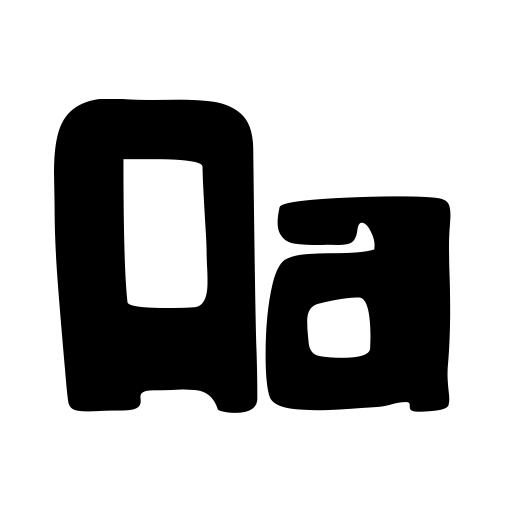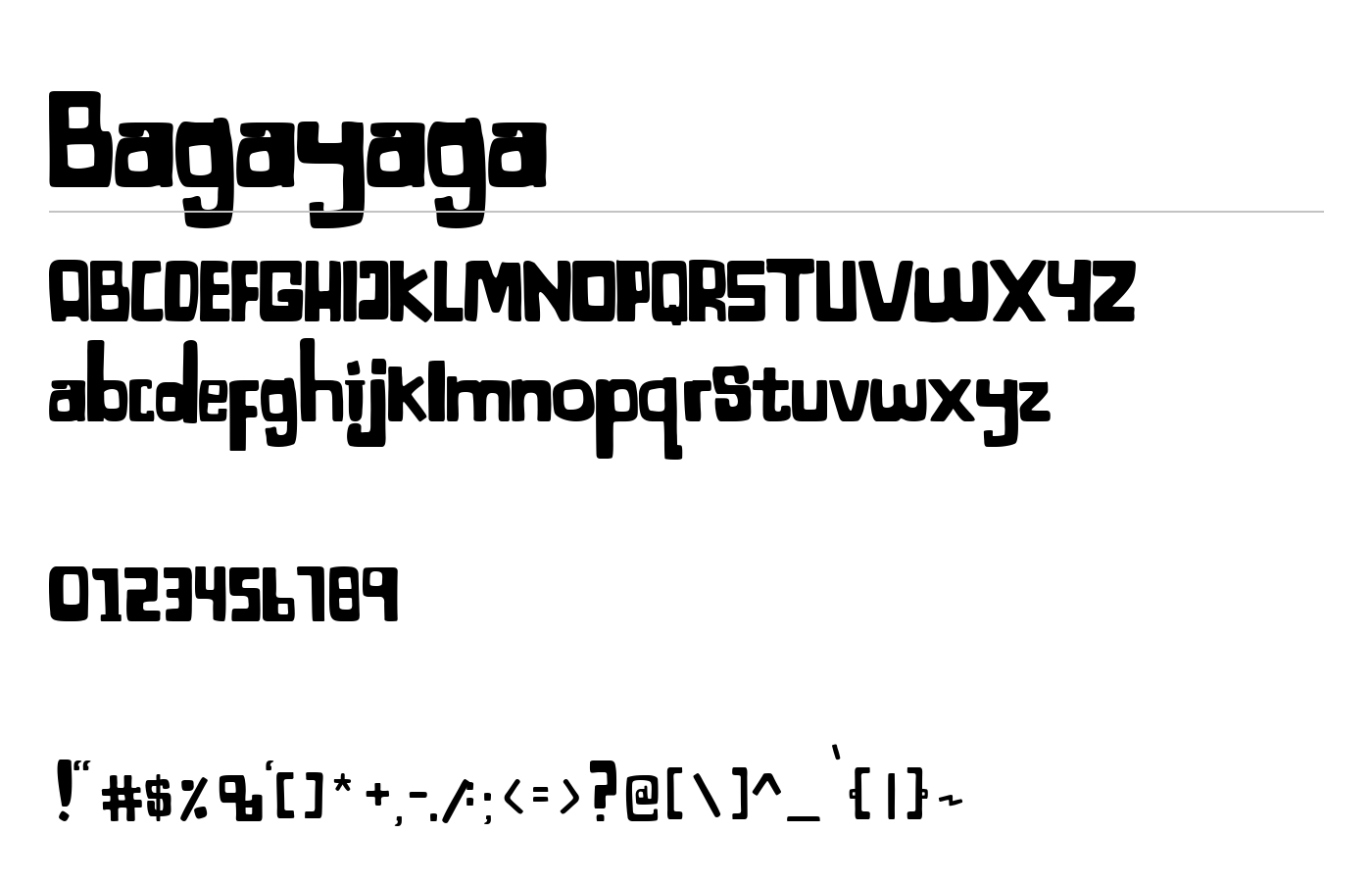
Bagayaga is a bold, playful sans serif font with a quirky, hand-crafted feel. Its thick strokes, irregular shapes, and slight variations in letter width give it a rustic, informal personality that works well for eye-catching headlines, logos, and creative projects aiming for a fun and approachable vibe. This font is best suited for designs that want to stand out with a unique, friendly style without sacrificing readability.
Bagayaga Font
About Bagayaga Font
| Font family | Bagayaga Font |
| Designer | Zain Fahroni |